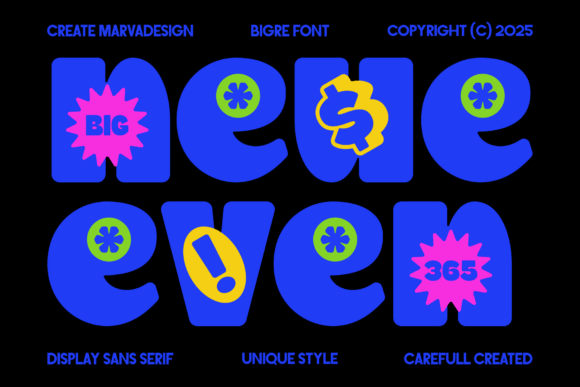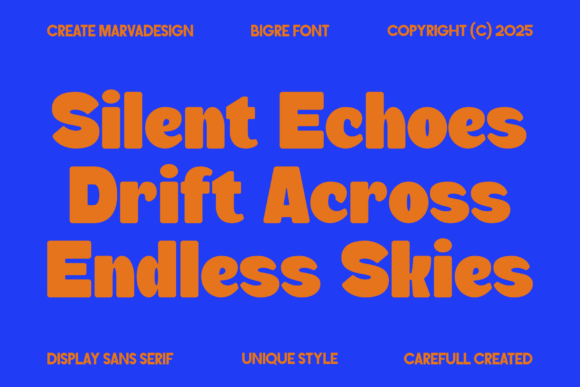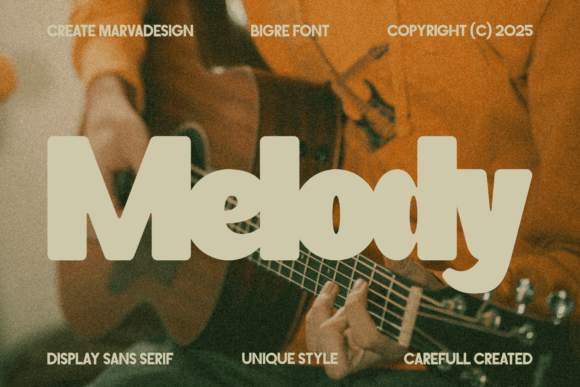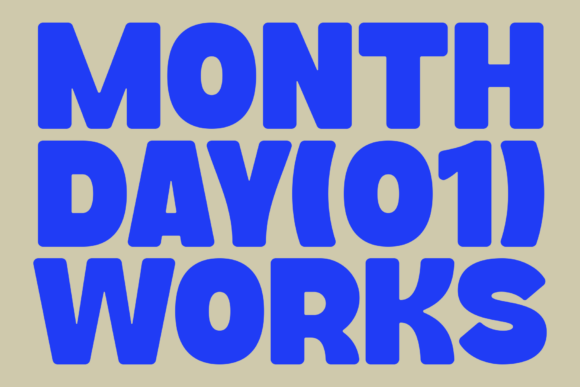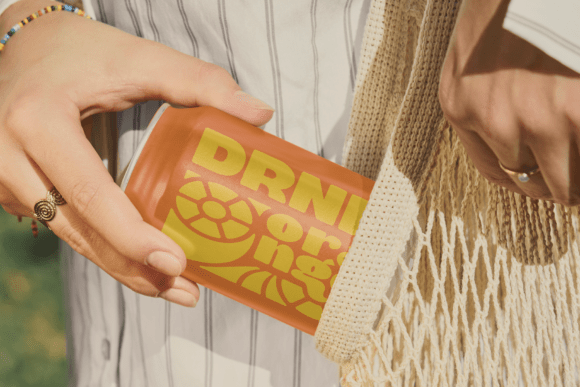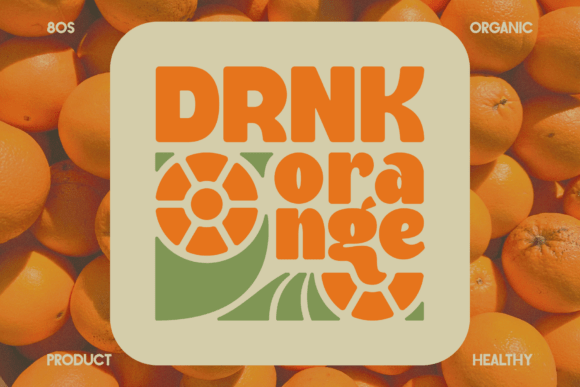
Introducing Bigre Font: The Bold and Playful Display Typeface
In the world of typography, a new font has emerged that is making waves with its massive presence and bold personality. Meet Bigre, a contemporary display sans serif typeface that is taking the design world by storm. The name “Bigre” is a fusion of “Big” and “Ogre,” which perfectly reflects the font’s oversized proportions and chunky strength.
A Font that Balances Power with Fun
Bigre is a font that is designed to make a statement. With its smooth curves and playful quirks, it balances power with a sense of fun. Each letterform is carefully crafted to evoke a chunky, almost monstrous strength while still retaining a friendly and approachable charm. The exaggerated terminals and rounded counters contribute to its unique character, making it stand out from conventional geometric sans serifs.
Designed for Visual Impact
Bigre is designed for visual impact, thriving in large-scale applications such as posters, billboards, editorial headlines, and branding identities that seek to be both memorable and distinctive. Its heavy weight ensures visibility from afar, while the subtle whimsical details add a layer of originality that prevents it from feeling rigid or overly serious.
Key Features of Bigre Font
• Oversized proportions: Bigre’s massive size makes it perfect for headlines and titles that need to grab attention.
• Smooth curves: The font’s smooth curves give it a friendly and approachable feel.
• Playful quirks: Bigre’s playful quirks add a layer of whimsy and creativity to any design.
• Exaggerated terminals: The font’s exaggerated terminals contribute to its unique character and make it stand out from other sans serifs.
• Rounded counters: Bigre’s rounded counters add to its chunky, almost monstrous strength.
Bigre is a font that celebrates boldness and creativity, embodying the spirit of design that dares to be different. It’s perfect for designers and crafters who want to add a touch of personality to their work. Whether you’re designing a poster, a billboard, or a branding identity, Bigre is sure to make a statement.
Tips for Using Bigre Font
• Use it for headlines: Bigre is perfect for headlines and titles that need to grab attention.
• Experiment with colors: The font’s bold personality can be amplified by experimenting with different colors and textures.
• Pair it with other fonts: Bigre can be paired with other fonts to create a unique and interesting contrast.
• Don’t be afraid to get creative: Bigre is a font that encourages creativity and experimentation.
Font Name Bigre Font
Author Marvadesign
In conclusion, Bigre is a font that is sure to make a statement. With its bold personality, oversized proportions, and playful quirks, it’s perfect for designers and crafters who want to add a touch of personality to their work. Whether you’re designing a poster, a billboard, or a branding identity, Bigre is sure to thrive in large-scale applications. So why not give it a try and see how it can elevate your design?
Get Ready to Make a Statement with Bigre Font
Bigre is a font that is ready to take the design world by storm. With its unique character and bold personality, it’s sure to make a statement in any design. So don’t wait any longer, get ready to make a statement with Bigre font and take your design to the next level.